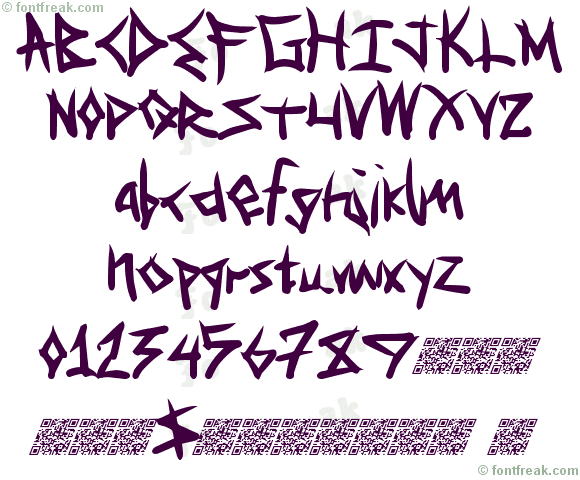
SpecialDelivery
The SpecialDelivery font by XEROGRAPHER FONTS is a distinctive display typeface that captures the essence of handwritten artistry. Created in 2013, this font features an organic, playful aesthetic characterized by its uneven stroke weight and spontaneous letterforms. The design embodies a casual vibe, making it perfect for projects that require a personal touch. The contrasting elements in the letters contribute to its dynamic appearance, while the slightly irregular spacing adds to its authentic handwritten feel.
This font is ideal for a variety of creative applications. Wedding invitations can benefit from its whimsical charm, setting a light-hearted tone for the celebration. Additionally, it works wonderfully on movie posters, where its unique flair can draw attention and evoke curiosity. Restaurant menus will also shine when using the SpecialDelivery font, as it adds a friendly and inviting atmosphere to the dining experience. Furthermore, small business owners can leverage this font for branding materials, ensuring their identity stands out in a crowded market.
Targeted towards graphic designers, content creators, and small business owners, the SpecialDelivery font offers versatility and character. It invites creativity and encourages users to explore unconventional design approaches. The font's casual nature makes it a great choice for informal communications and promotional materials, appealing to audiences seeking authenticity and warmth in their messaging.
What sets the SpecialDelivery font apart is its ability to convey personality and emotion through typography. This font free download provides an opportunity for creatives to enhance their projects with a unique style that feels both approachable and engaging. Embrace the charm of the SpecialDelivery font and elevate your designs with its delightful handwritten appeal.